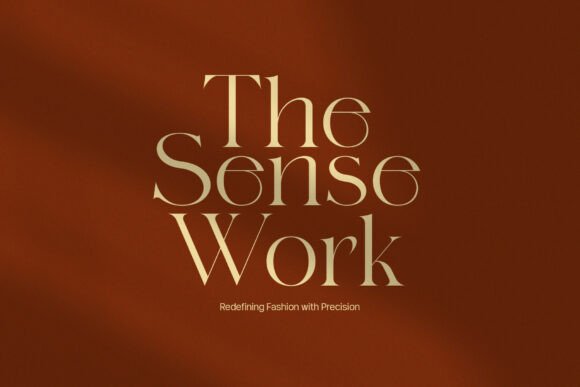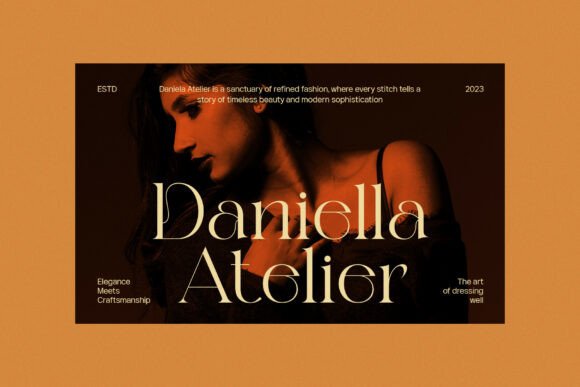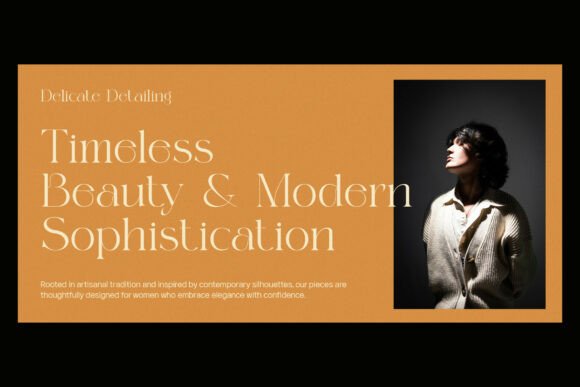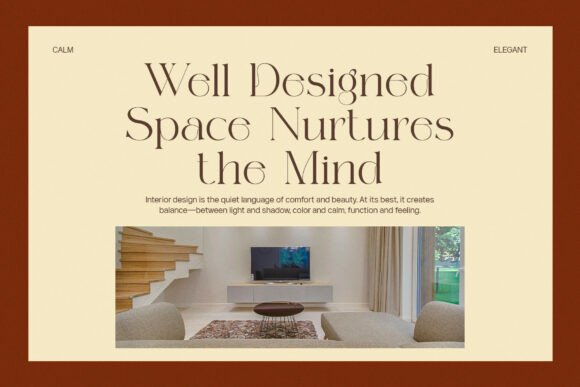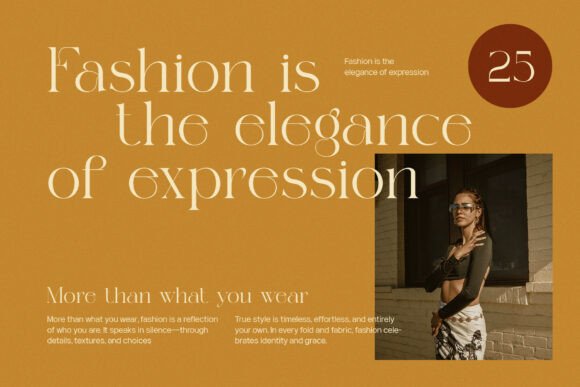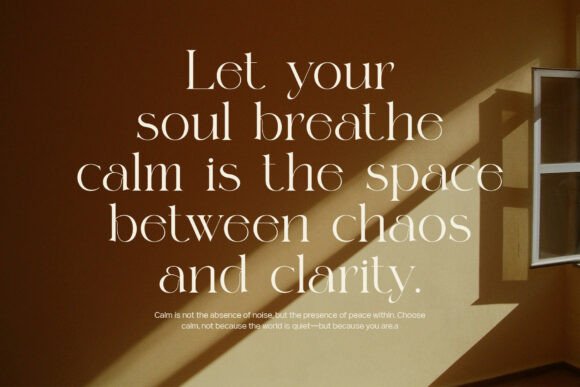
Introduction to Ragne Font Font
Fonts play a crucial role in design, and the Ragne Font font is a typeface that brings both character and versatility to any project. Whether you’re working on a branding project, a website, or a print design, the Ragne Font font offers a unique style that can elevate your work.
Ragne Serif Font – Timeless Elegance in Every Letter Ragne Serif Font is a luxurious and modern serif typeface crafted to elevate any design.
While it embraces classic form, it also delivers a bold and fresh look With strong contrast and refined details, this font ensures your work feels premium and professional.
Key Features of Ragne Font Font
Why Choose Ragne Font Font?
The Ragne Font font is more than just a typeface – it’s a design tool that helps you communicate your message with style and clarity. Its unique character set and versatile design make it suitable for a wide range of applications, from elegant invitations to bold headlines.
With its carefully crafted letterforms and balanced proportions, the Ragne Font font ensures readability and visual appeal across all mediums.
What makes Ragne Font font special?
The Ragne Font font stands out with its unique design, exceptional readability, and versatility across various design applications.